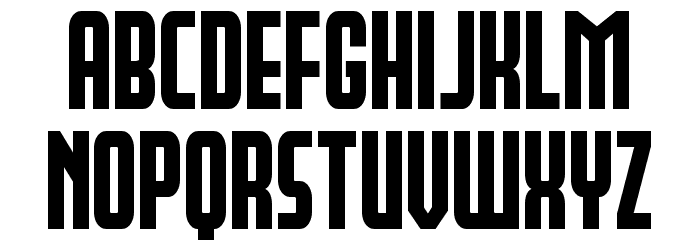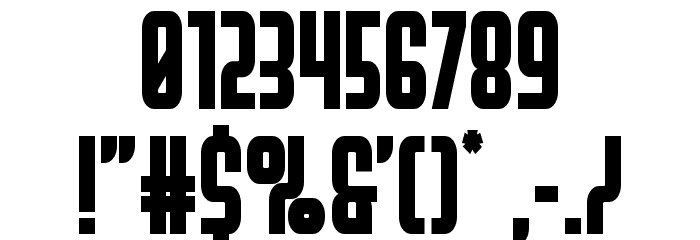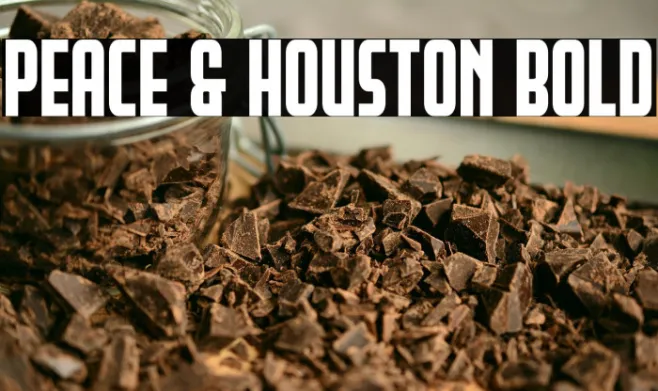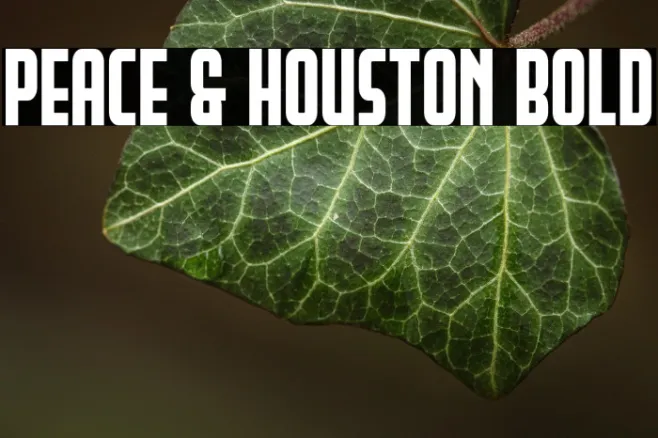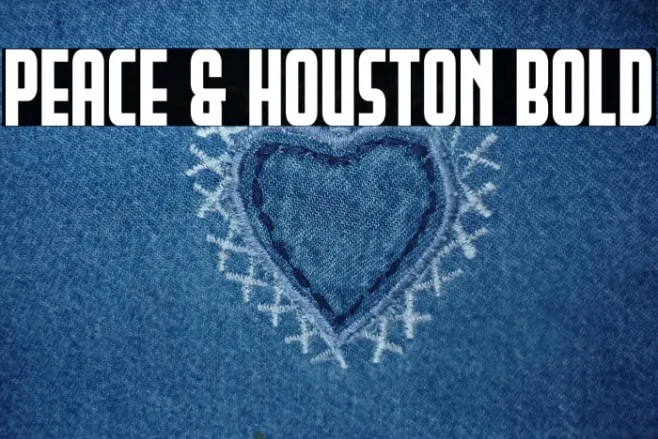
Peace & Houston Bold Font
This bold and striking font features a geometric and blocky design, characterized by its thick, uniform strokes and sharp angles. The uppercase letters are prominent and commanding, making a strong visual impact. The numbers and special characters maintain the same boldness, ensuring consistency across all glyphs. The font's design is modern and assertive, suitable for projects that require a strong and confident typographic presence. Its clean lines and lack of serifs contribute to a contemporary aesthetic, making it versatile for various design applications.
A bold, geometric font with thick strokes and a modern, assertive style.
- Font: Peace & Houston Bold
- Proposed Projects: Ideal for headlines, posters, branding, and any design requiring a bold statement.